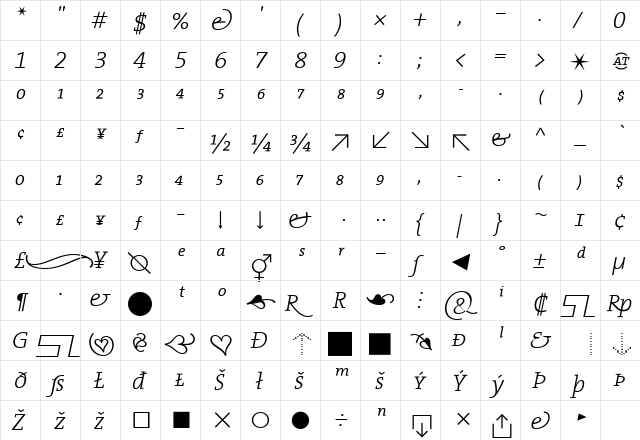
TheSerif Light Italic
Design Context for TheSerif Typeface
TheSerif brings classic typographic sensibility to the table — its serifs and measured letterforms reflect centuries of print heritage. The dynamic lean of this cut emphasises speed and emphasis in any layout. The delicate stroke weight brings airiness and refinement to layouts.
Pro Tip: Set TheSerif at slightly larger body copy sizes than you would a regular-weight serif to compensate for its delicate stroke contrast.